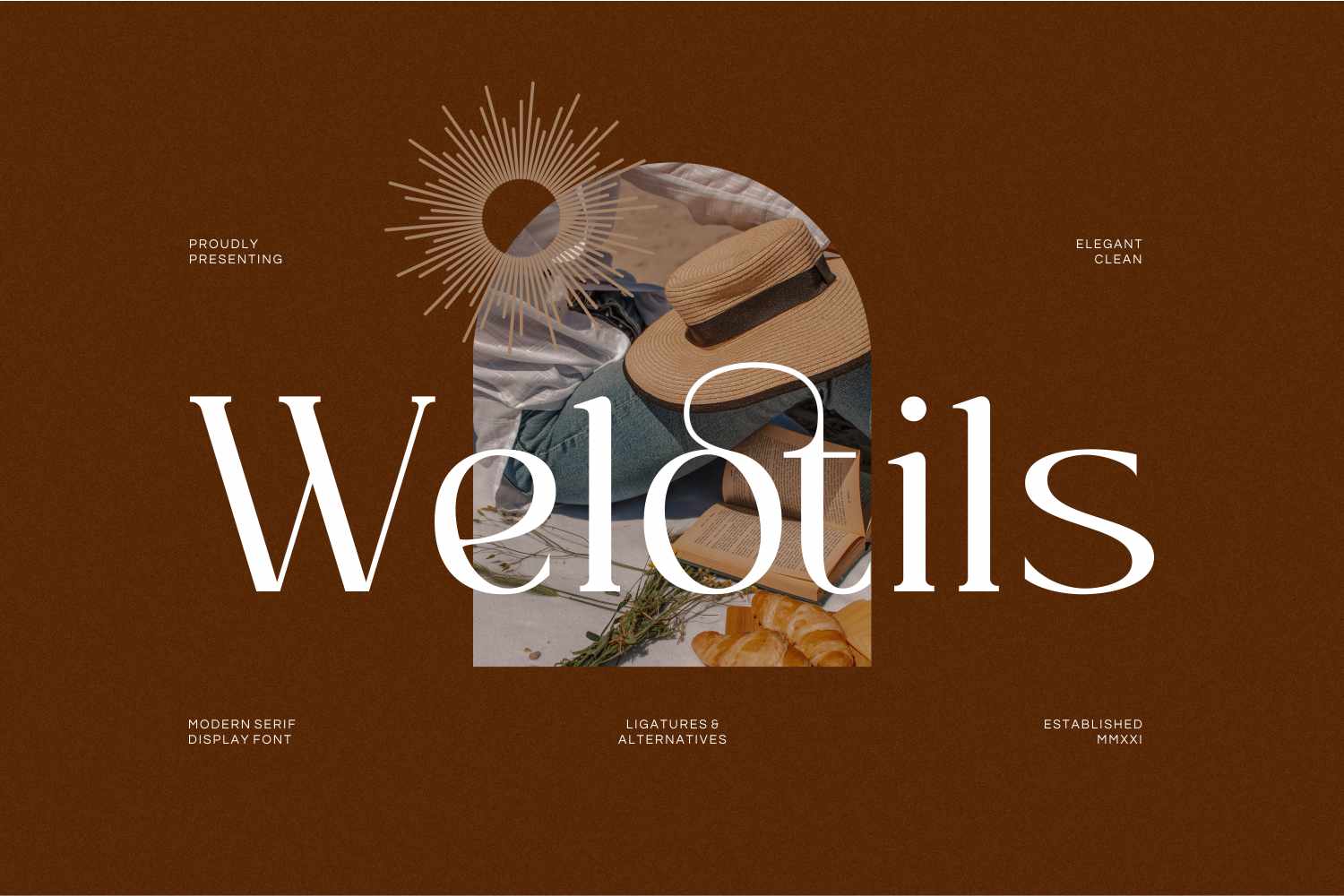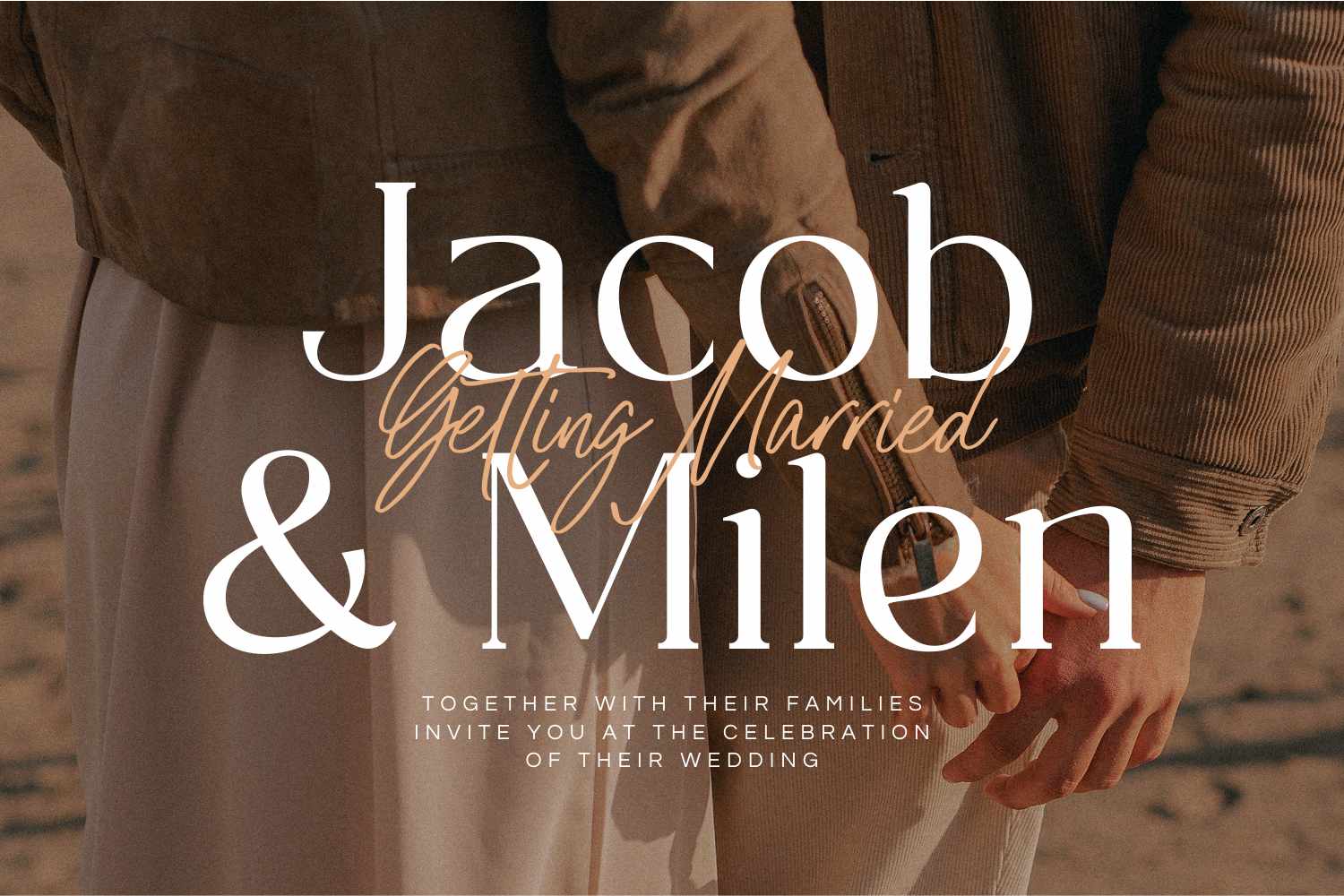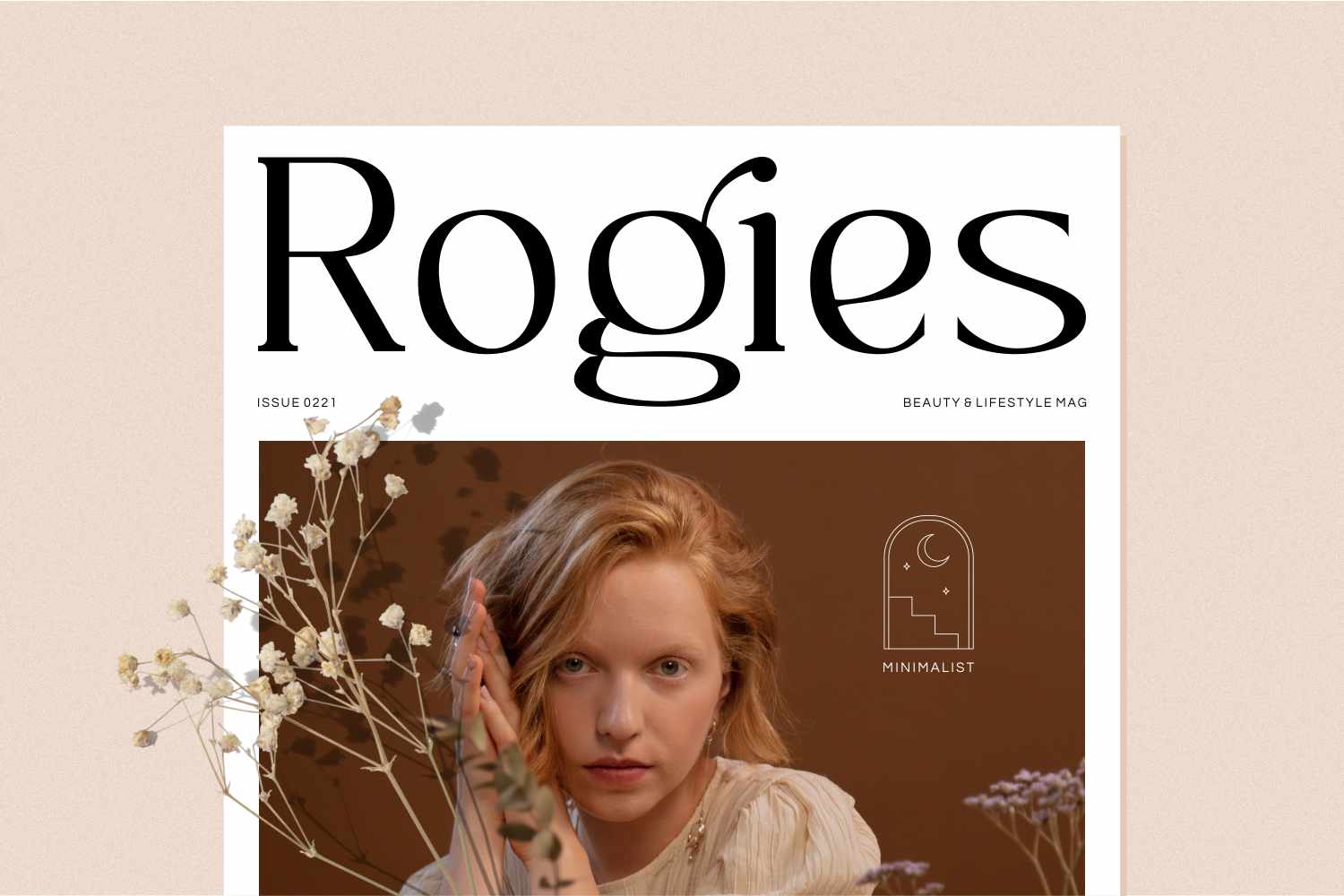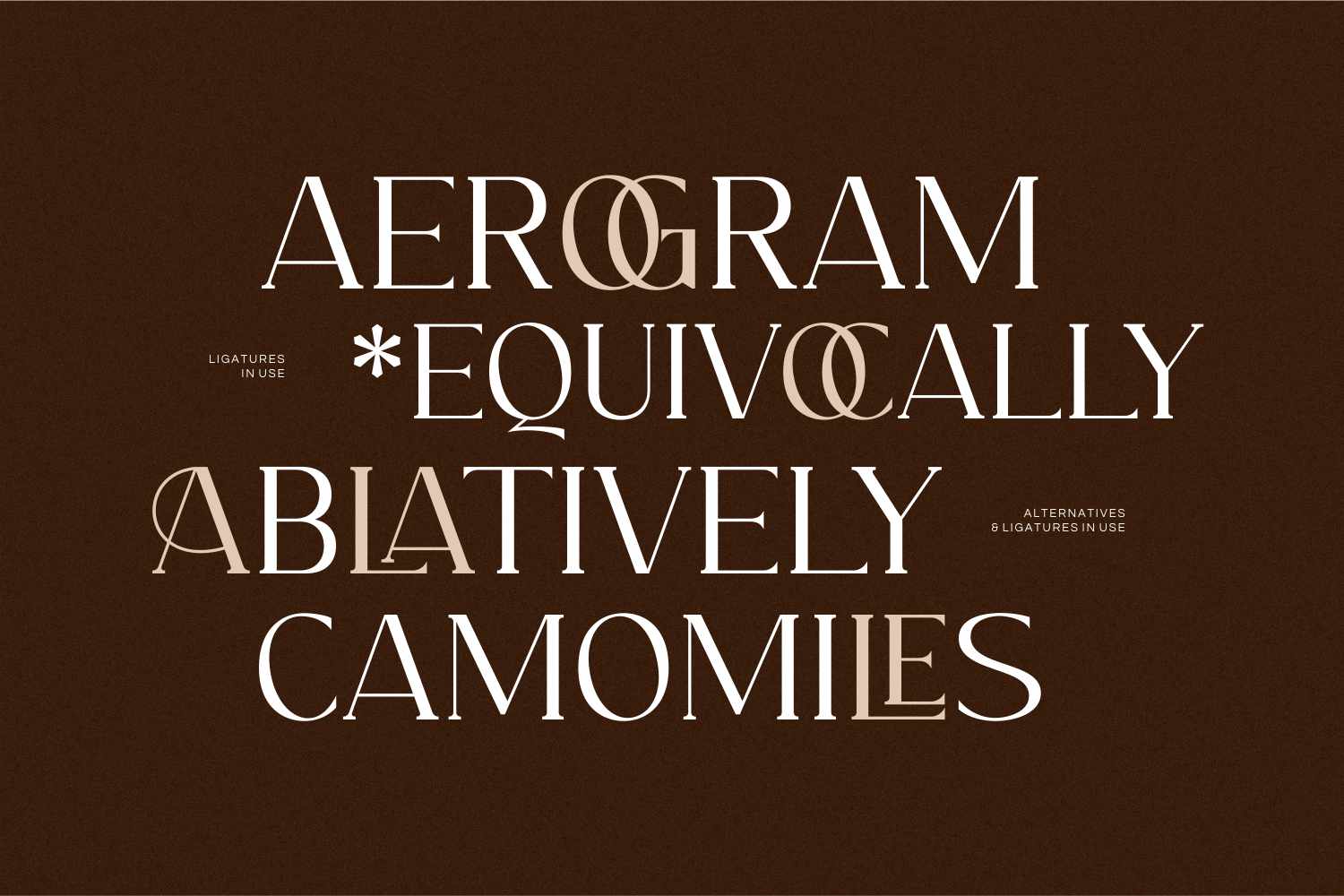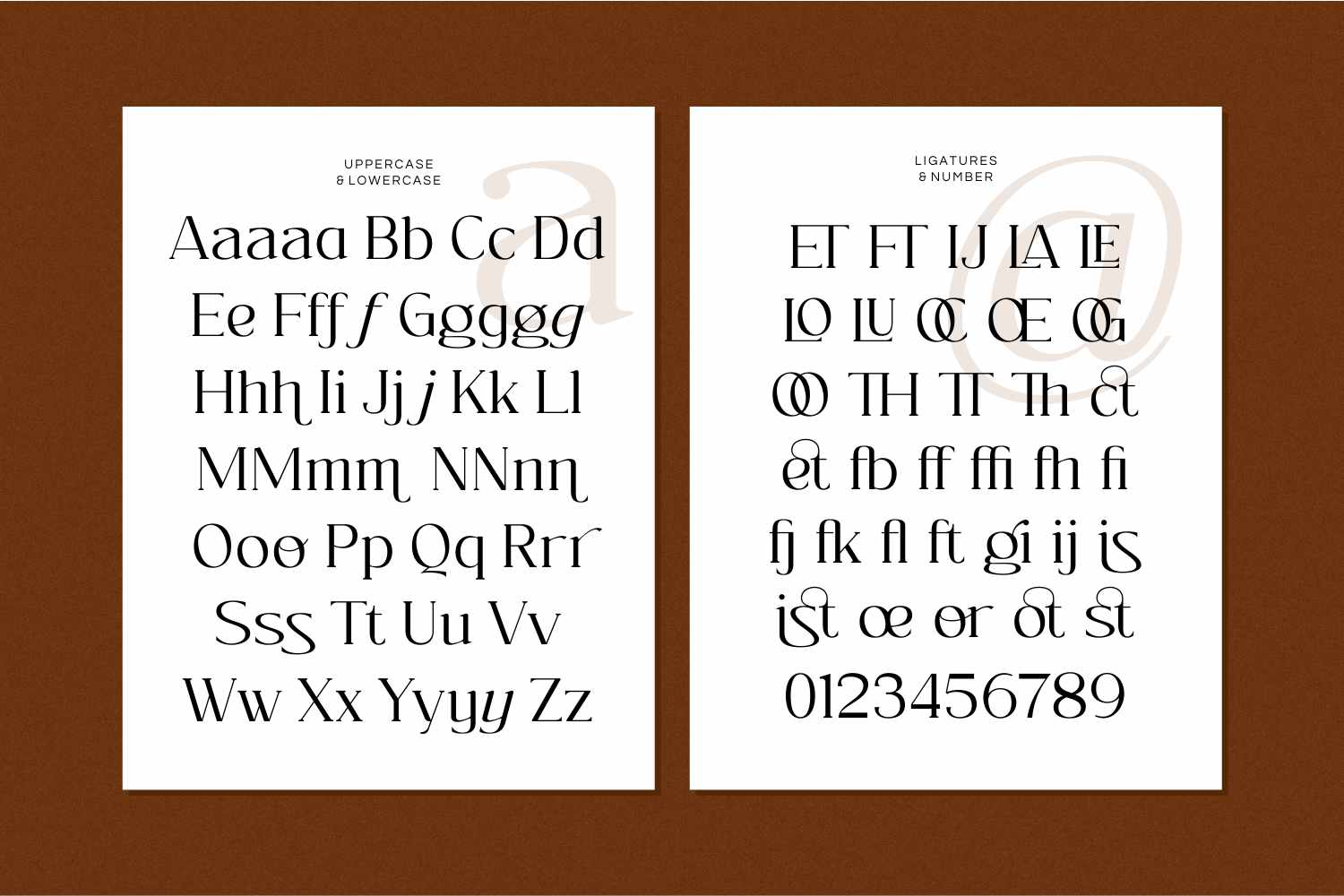
Welotils is a refined modern serif display font that combines timeless elegance with unique personality. Featuring graceful high-contrast strokes and distinctive ligatures, it adds a contemporary flair to any sophisticated design project. Whether used for branding, magazine covers, or wedding invitations, Welotils offers a harmonious balance between tradition and modernity.
With a complete set of uppercase, lowercase, numerals, and extensive ligature combinations, Welotils gives designers the flexibility to craft expressive typographic compositions. Its stylistic alternates make it an ideal choice for luxury labels, editorial layouts, and artistic branding that aims to leave a lasting impression.